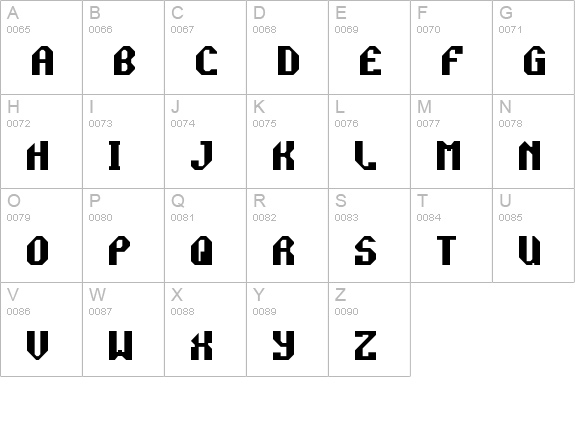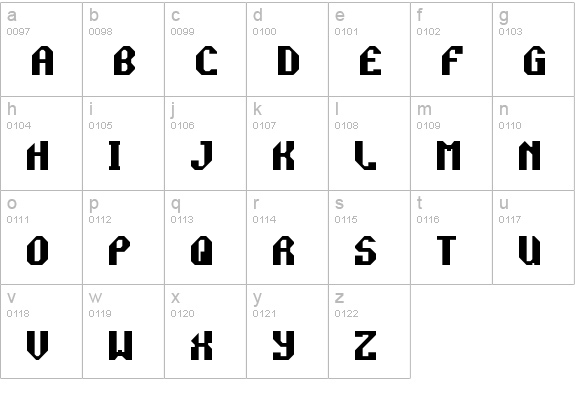
Rocket Propelled - DGL font is a bold and dynamic typeface that is sure to make your designs stand out. With its sleek and futuristic look, this font is perfect for projects that need a touch of excitement and energy. The sharp lines and edgy angles of the letters give this font a modern and cutting-edge feel, making it ideal for posters, logos, and other creative projects. What's even better is that Rocket Propelled - DGL font is completely free to download at FontsMarket.com. So you can add this eye-catching font to your font library without breaking the bank. Don't miss out on the opportunity to enhance your designs with this striking and versatile typeface. Download Rocket Propelled - DGL font today and take your projects to new heights!